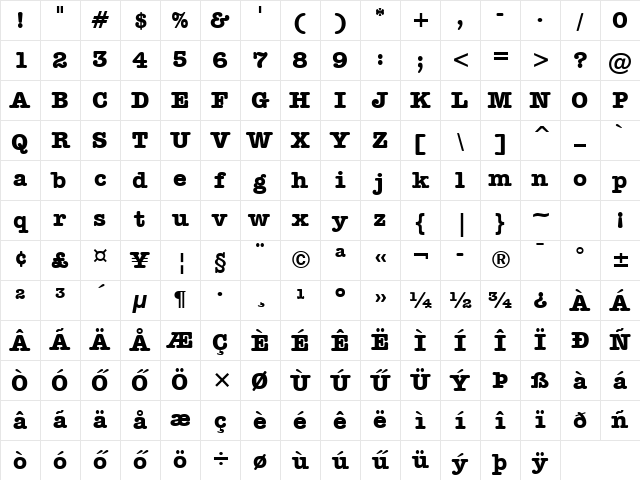
Huni_Ameti Regular
Design Context for Huni_Ameti
Huni_Ameti is a composed and adaptable typeface that performs quietly and consistently across a wide range of design contexts.
Pro Tip: Use Huni_Ameti in both headline and body roles to test its range before committing to a single application.